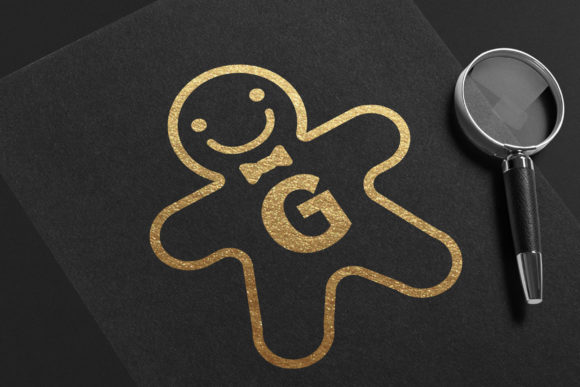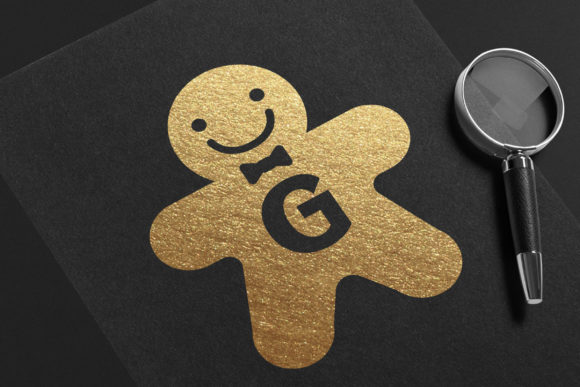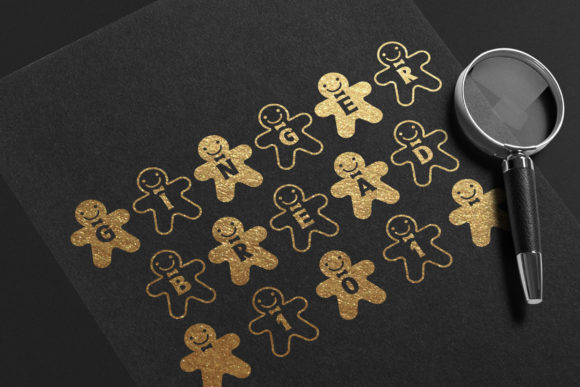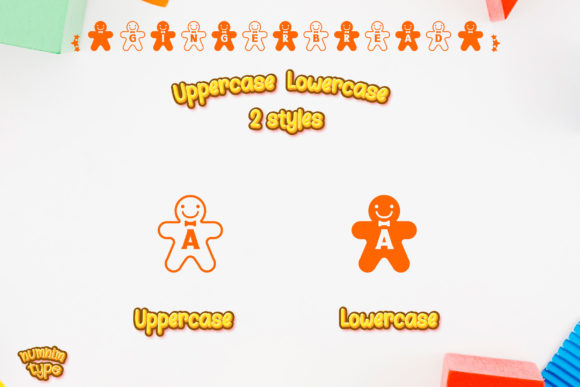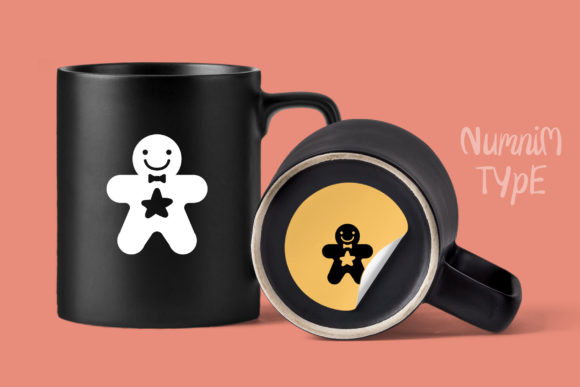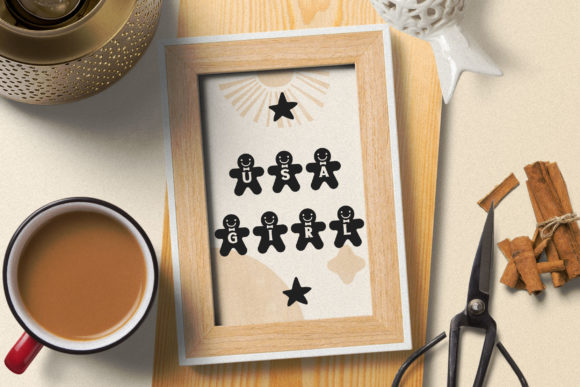
Gingerbread Font: The Sweetest Addition to Your Winter Designs
Are you looking for a fun and playful font to add a bold accent to your winter designs? Look no further than the Gingerbread Font! This cool and uniquely designed decorative font is perfect for Christmas Day and winter-related projects. In this article, we’ll dive into the details of the Gingerbread Font, its features, and how you can use it to create amazing designs.
What is Gingerbread Font?
Gingerbread Font is a decorative font that features letters shaped as smiling gingerbread men. Each character is carefully designed to bring a touch of fun and playfulness to your designs. The font is perfect for designers and crafters who want to add a personal touch to their projects. Whether you’re creating stickers, mugs, t-shirts, ornaments, Christmas cards, or event invitations, the Gingerbread Font is sure to make your designs stand out.
Features of Gingerbread Font
- Unique and playful design: Each character in the Gingerbread Font is designed to resemble a smiling gingerbread man, making it a one-of-a-kind addition to your designs.
- Suitable for winter projects: The font is perfect for Christmas Day and winter-related projects, such as holiday cards, decorations, and gift tags.
- Versatile: The Gingerbread Font can be used for a variety of projects, including stickers, mugs, t-shirts, ornaments, Christmas cards, event invitations, and more.
- Create holiday cards: Use the Gingerbread Font to create personalized holiday cards for your friends and family.
- Design festive decorations: Use the font to create festive decorations, such as garlands, banners, and gift tags.
- Make custom gifts: Use the Gingerbread Font to create custom gifts, such as mugs, t-shirts, and ornaments.
- Create event invitations: Use the font to create festive event invitations, such as holiday party invitations or Christmas-themed event invites.
Benefits of Using Gingerbread Font
Using the Gingerbread Font can add a touch of personality and whimsy to your designs. Here are some benefits of using the font:
- Adds a personal touch: The Gingerbread Font adds a personal touch to your designs, making them more unique and special.
- Creates a festive atmosphere: The font creates a festive atmosphere, perfect for winter and holiday-themed projects.
- Easy to read: The font is easy to read, making it perfect for use in titles, headings, and body text.
- Versatile: The Gingerbread Font is versatile and can be used in a variety of projects, from digital designs to print materials.
Tips and Tricks for Using Gingerbread Font
Here are some tips and tricks for using the Gingerbread Font:
- Use it sparingly: Use the Gingerbread Font sparingly to add a touch of personality to your designs.
- Pair it with other fonts: Pair the Gingerbread Font with other fonts to create a unique and interesting design.
- Experiment with colors: Experiment with different colors to find the perfect combination for your design.
- Have fun: Most importantly, have fun and be creative with the Gingerbread Font!
In conclusion, the Gingerbread Font is a fun and playful font that’s perfect for adding a bold accent to your winter designs. With its unique and playful design, versatility, and ease of use, it’s a great addition to any designer’s toolkit. Whether you’re a professional designer or a crafter, the Gingerbread Font is sure to bring a touch of personality and whimsy to your projects.